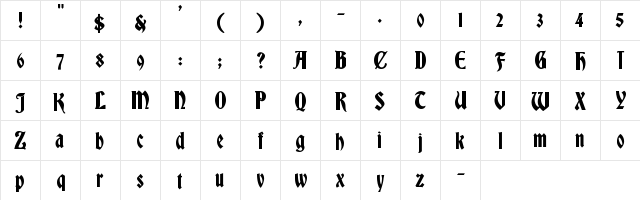
Bradley Gratis Regular
| Foundry | Justin Callaghan |
Design Context for Bradley Gratis Typeface
Bradley Gratis takes a measured approach to typography — its balanced proportions and neutral character make it a reliable workhorse for both digital and print work.